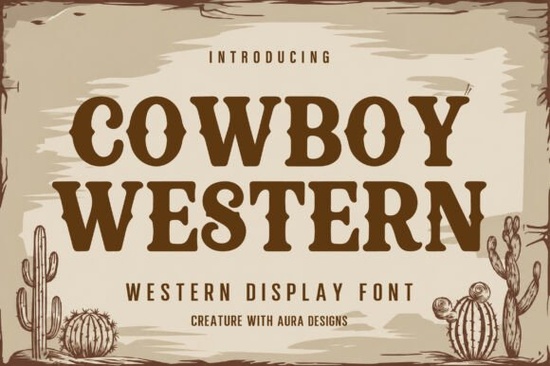
If you're looking for a bold, authentic western typeface that works straight out of the box whether you're designing a saloon sign for a local BBQ joint, creating merch for a country music festival, or building rustic packaging for an outdoor gear brand Cowboy Western Font fits naturally. It’s not just another “old west” font with cartoonish flourishes. This is a carefully drawn all-caps display font with strong slab serifs, subtle spur-like terminals, and balanced weight that reads clearly at large sizes without feeling dated or gimmicky.
What makes Cowboy Western different from other western fonts?
Many western-style fonts lean too hard into distressed textures, exaggerated drop shadows, or overly ornate swashes great for one-off posters, but tricky to use consistently across branding. Cowboy Western avoids those pitfalls. Its structure is clean and intentional: thick verticals, confident curves, and even spacing make it highly legible on signs, apparel tags, and digital ads. The design nods to 19th-century frontier lettering (think hand-painted wanted posters and general store signage), but it’s built for today’s tools fully compatible with Cricut, Silhouette, Canva, and Adobe apps. No extra plugins or workarounds needed.
Where does it work best?
This font shines where presence matters more than subtlety. Try it for:
- Restaurant branding menu headers, chalkboard-style specials, or takeout bag logos for Texas-style BBQ or southwestern cafes
- Rustic apparel chest prints on denim jackets, pocket embroidery on work shirts, or iron-on patches for outdoor clubs
- Print-on-demand products mugs, tote bags, and wall art with western themes (especially when paired with simple line-art illustrations)
- Event materials rodeo flyers, county fair banners, or vintage-style concert posters
- Packaging labels small-batch hot sauce, artisan jerky, or handmade soap with frontier-inspired names
It’s also versatile enough to pair well with simpler sans-serifs or soft serif companions no need to overload your layout with “western” elements everywhere. A little goes a long way.
How does it compare to similar fonts on Creative Fabrica?
If you’ve already explored options like Forever Humble, you’ll notice Cowboy Western trades gentle curves and warm friendliness for bolder, more grounded energy. Romantic Aura Duo leans elegant and script-based great for weddings or feminine branding but wouldn’t suit a rugged trail mix label. Leah offers modern charm with soft contrast, while Jersey Distressed adds intentional grit and texture, which can clash if overused. Cowboy Western sits in its own lane: confident, timeless, and quietly detailed not loud for the sake of it, but unmistakably rooted in western tradition.
For reference, you can see how Cowboy Western Font is used by real designers on Creative Fabrica’s marketplace look for mockups showing it on wood signs, denim patches, and retro posters to get practical inspiration.
• Test spacing early since it’s all-caps, kerning pairs like “AV”, “To”, or “We” may need minor manual adjustment in dense headlines.
• Avoid scaling it down below 36pt for print; its strength lies in impact, not fine detail.
• Pair it with neutral colors (charcoal, burnt orange, cream, deep navy) rather than busy backgrounds it holds up best against solid or lightly textured surfaces.
Before you start designing: Open your project, install the font, then try typing a short phrase like “Trailblazer” or “High Desert Co.” in all caps. Adjust size and tracking until the letters feel anchored not cramped, not floating. That’s when Cowboy Western starts doing the work for you.